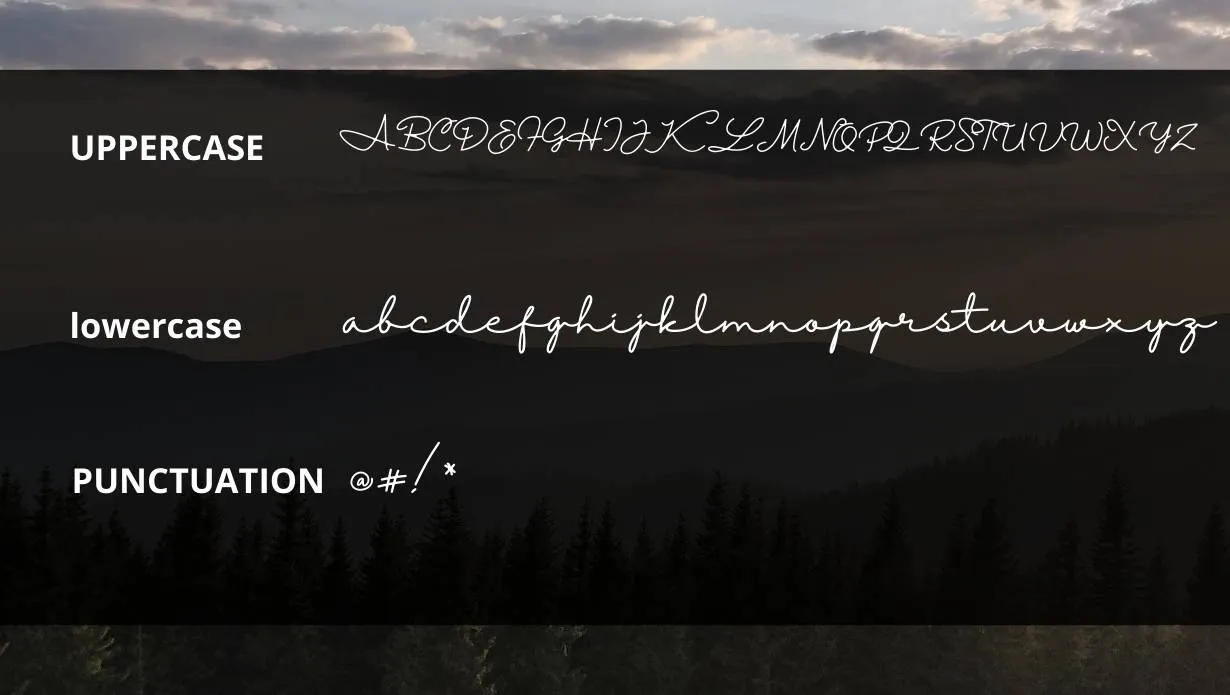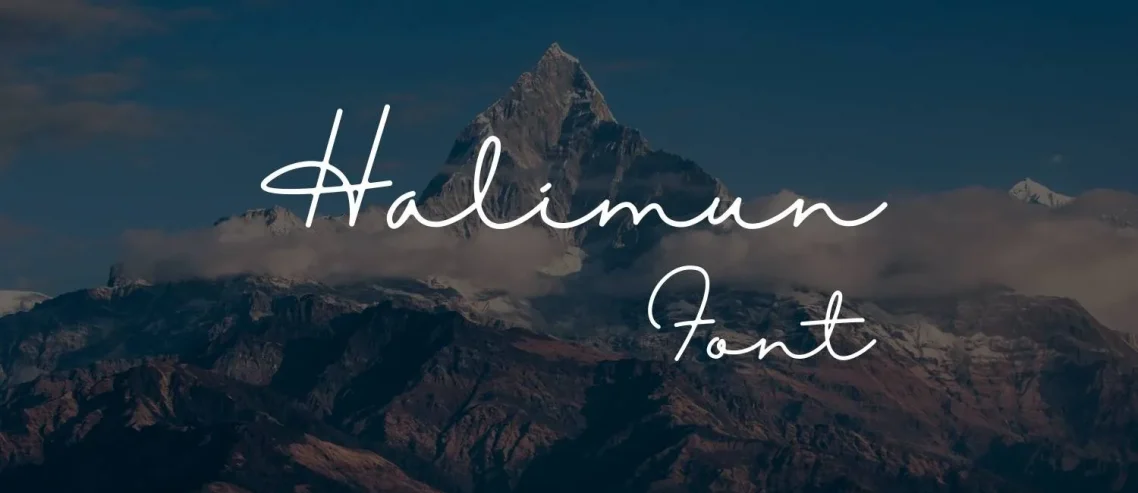
Halimun Font is a font that was created by Indonesian type designer Raharja Widya. The Typeface is named after Mount Halimun, which is located in West Java, Indonesia.
Halimun Typeface was designed to be used for both body text and headlines. The font includes three weights (light, regular, and bold), and it includes both Latin and Cyrillic characters. Halimun Typeface is available in both TTF and OTF formats.
It is quite similar to the scriptina font and it has a pairing personality with that, so you can combine them and make something crazy stuff.
| Name | Halimun Font |
| Designer | Raharja Widya |